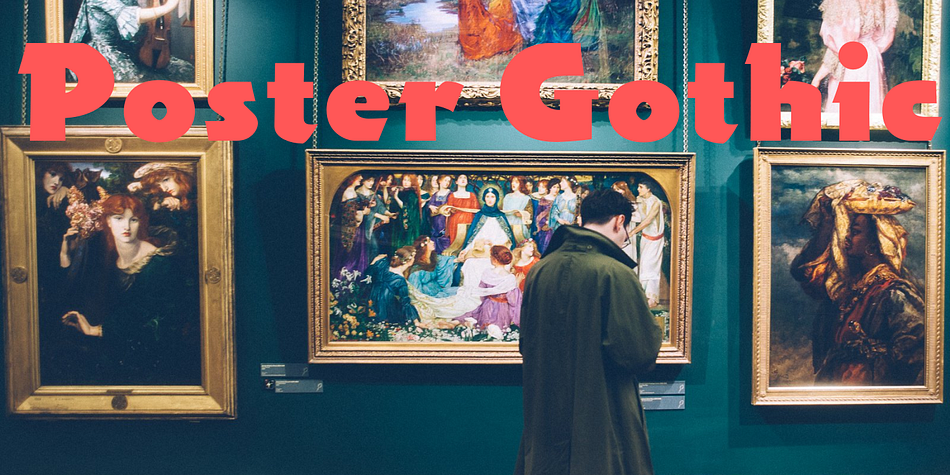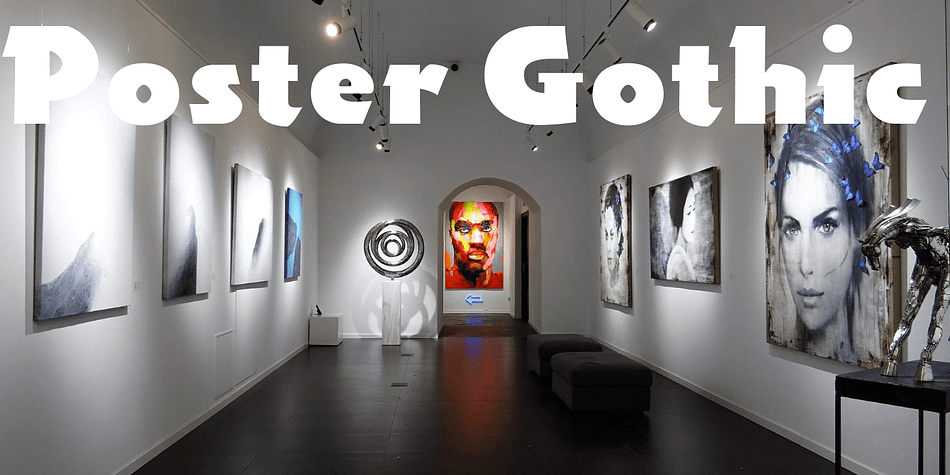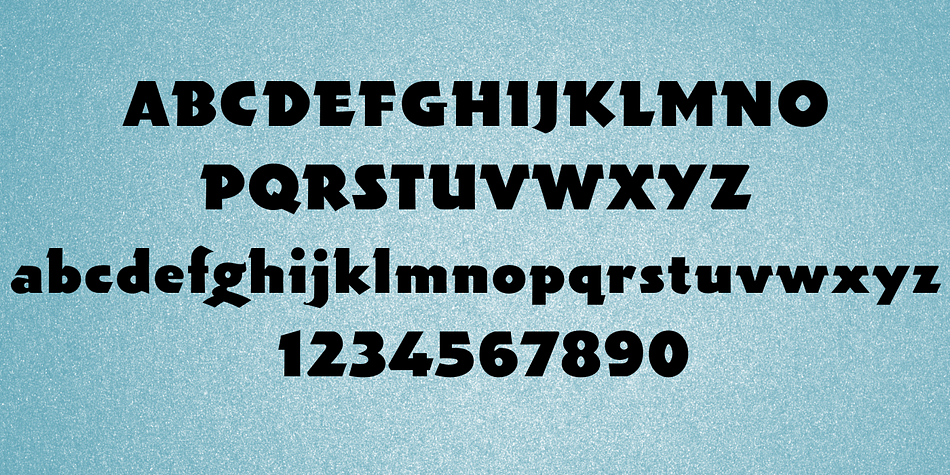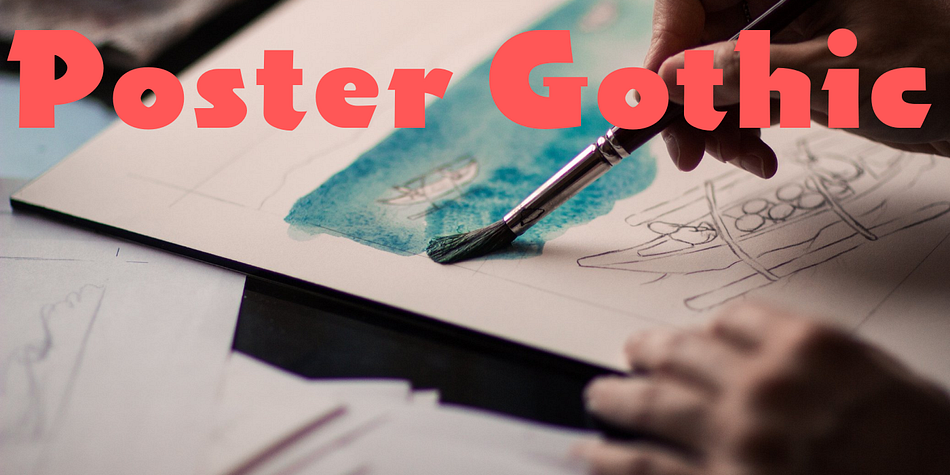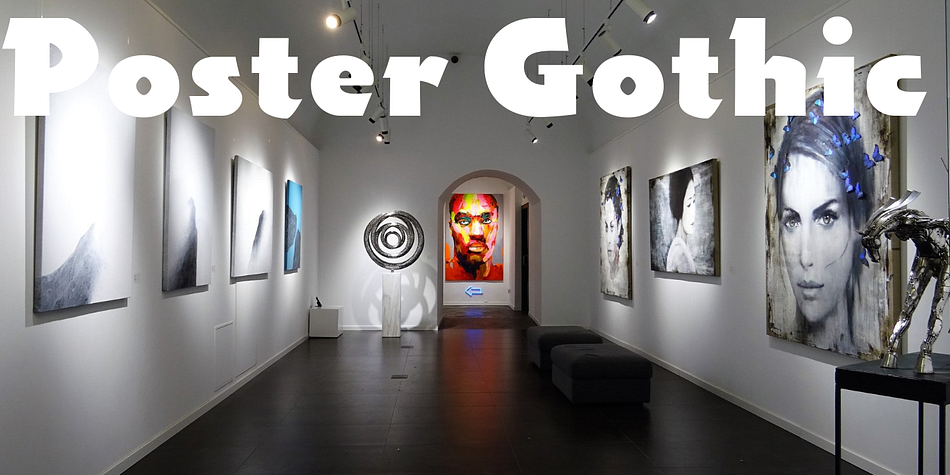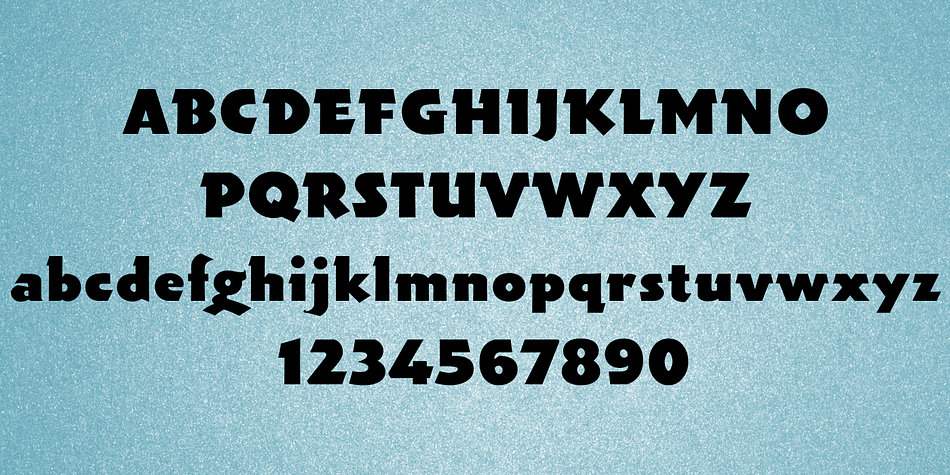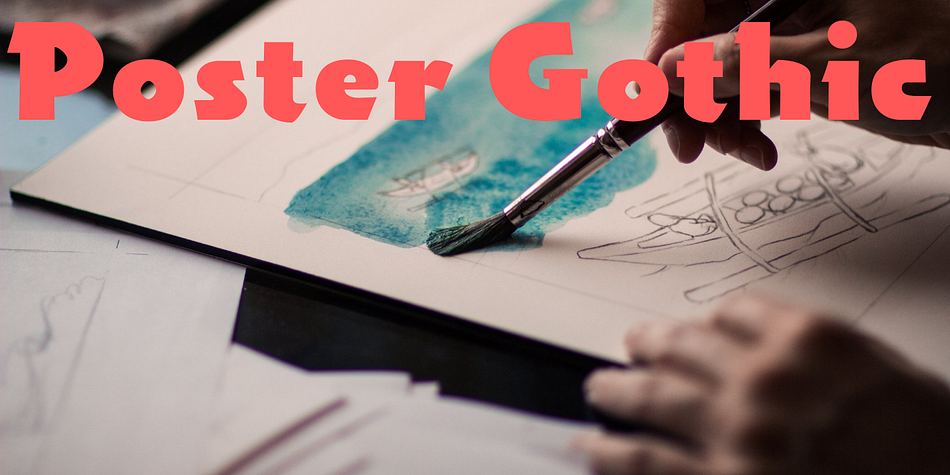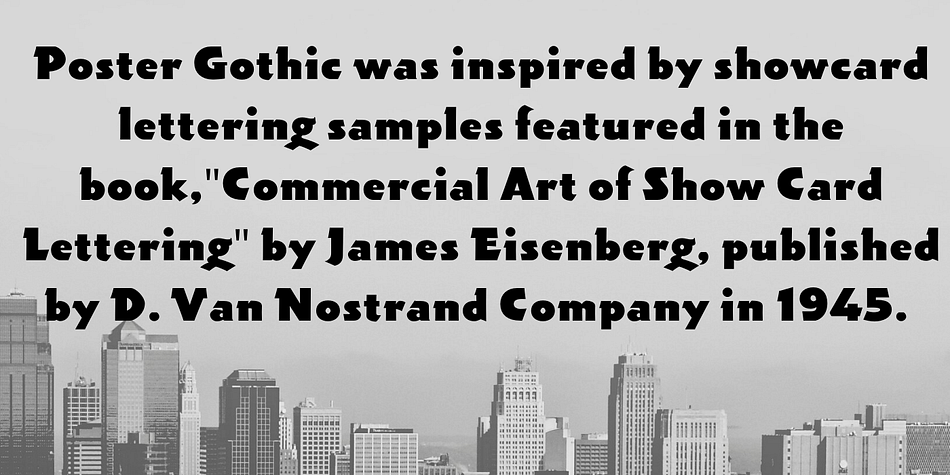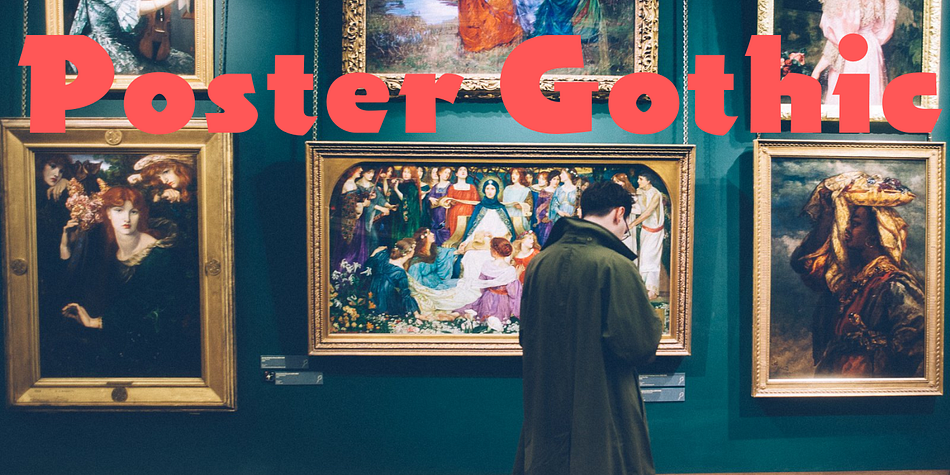
Poster Gothic
Poster Gothic is a display serif font published by FontHaus.
Poster Gothic was inspired by showcard lettering samples featured in the book,”“Commercial Art of Show Card Lettering”” by James Eisenberg, published by D. Van Nostrand Company in 1945.